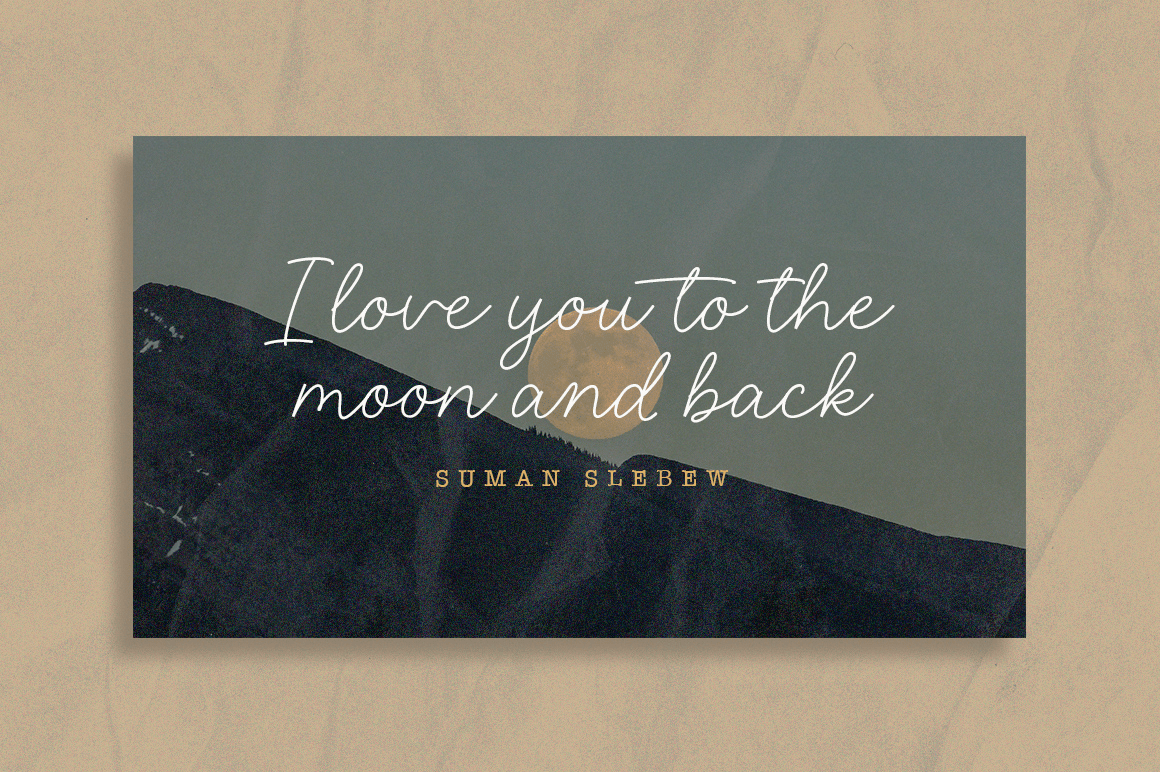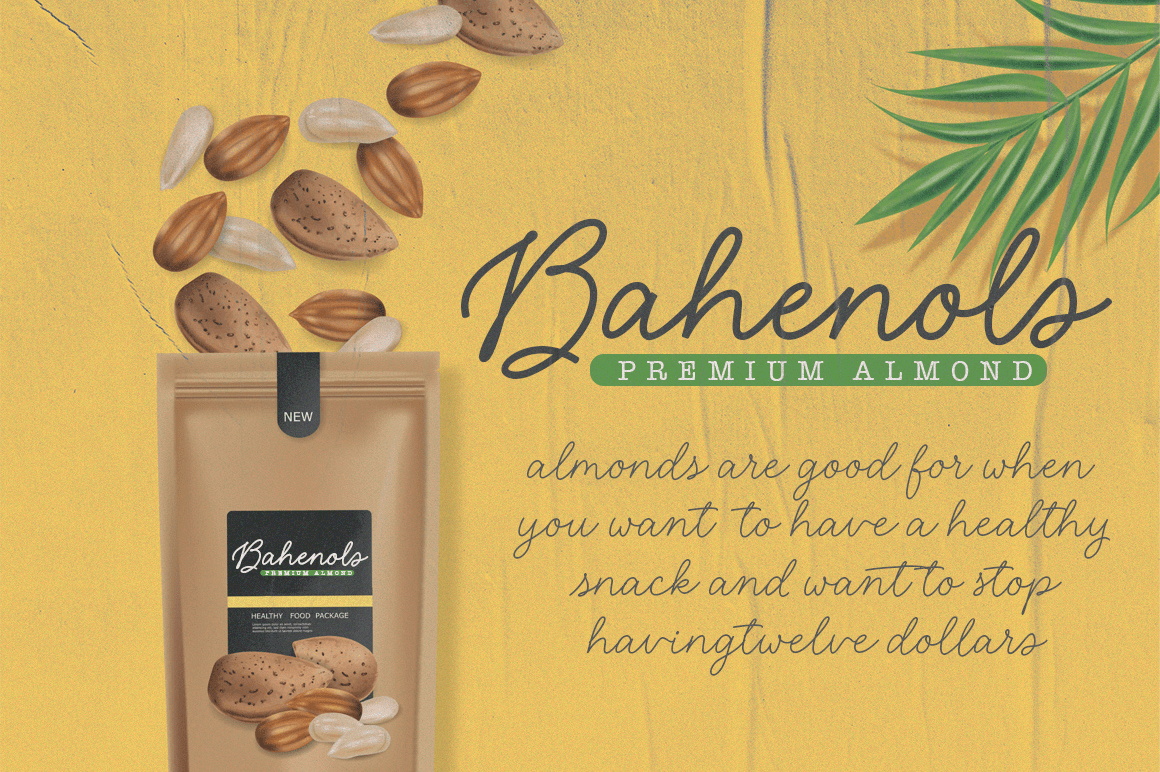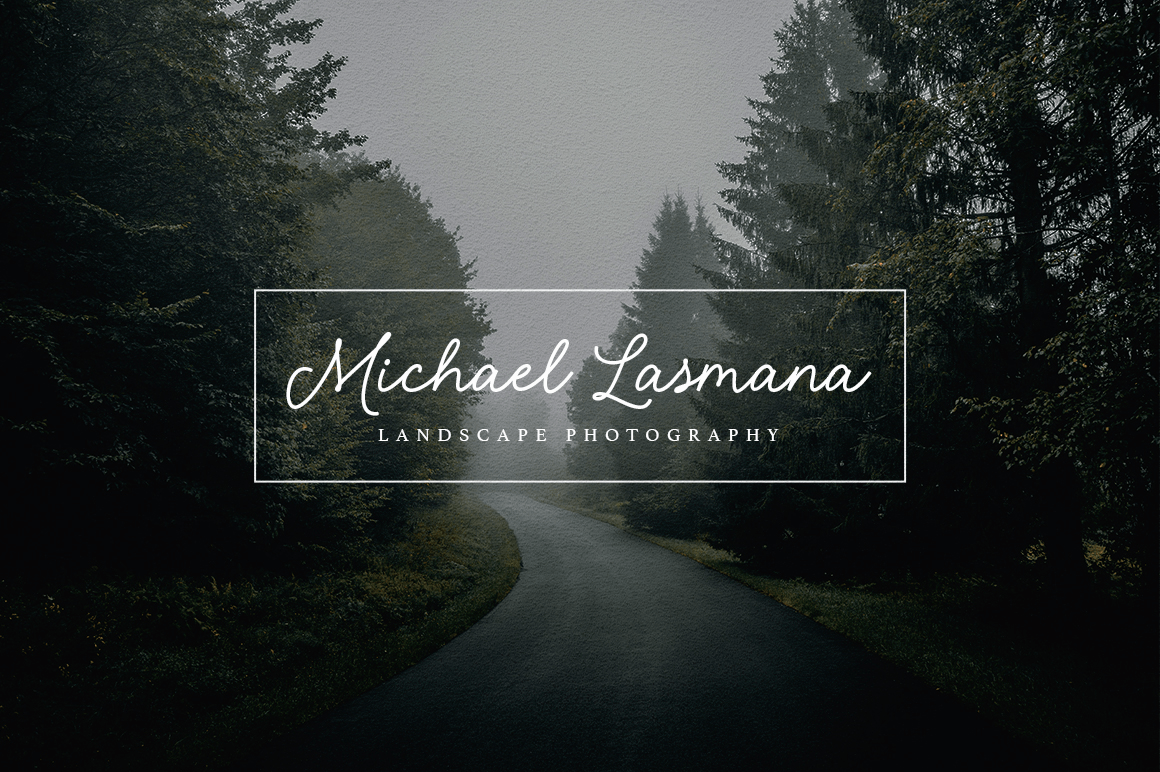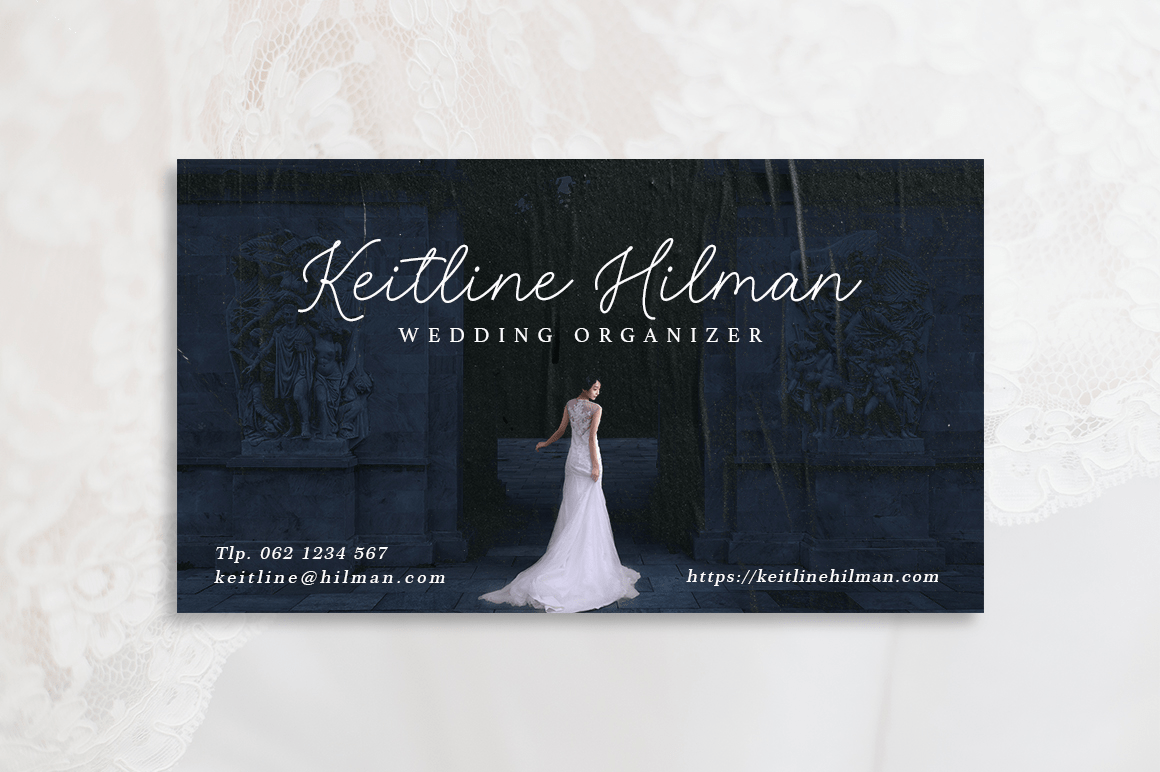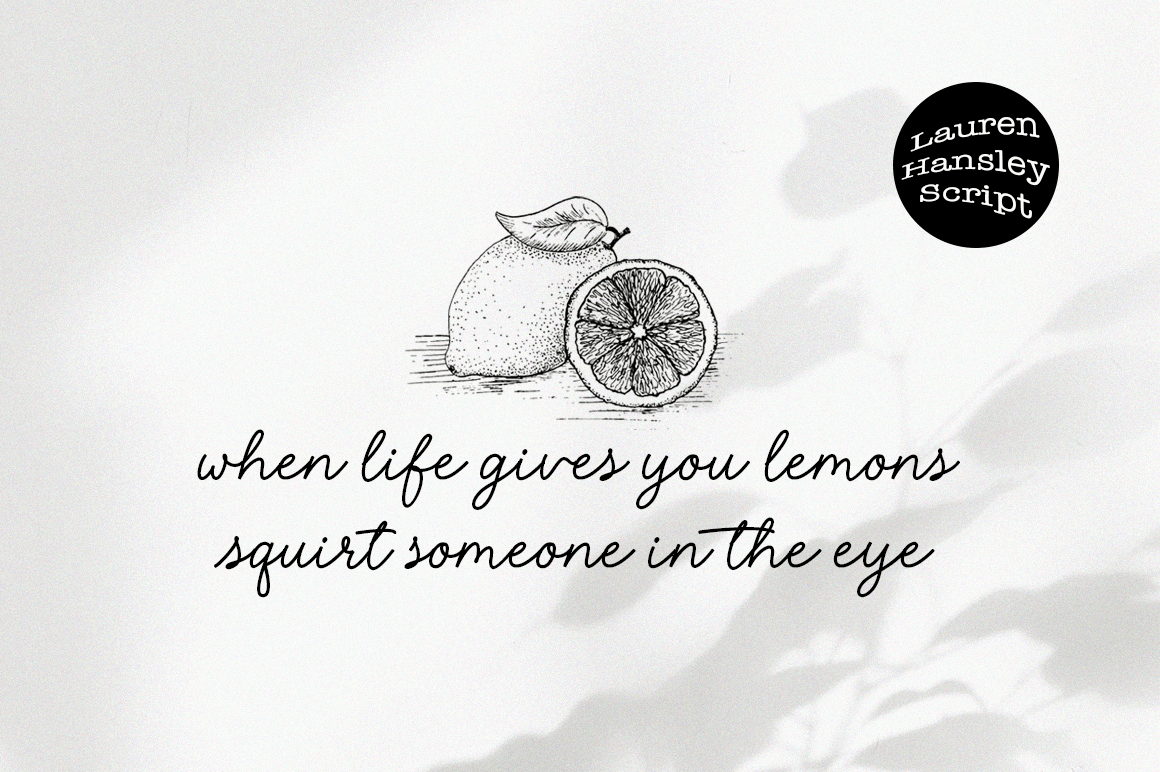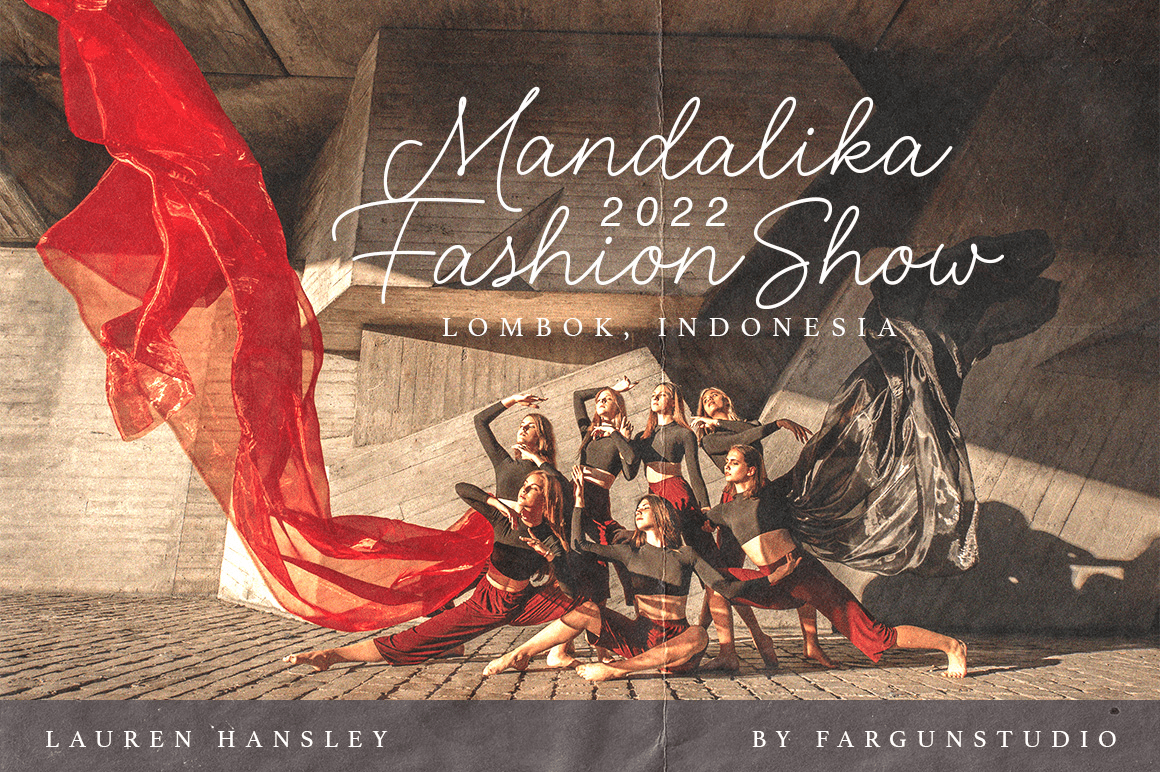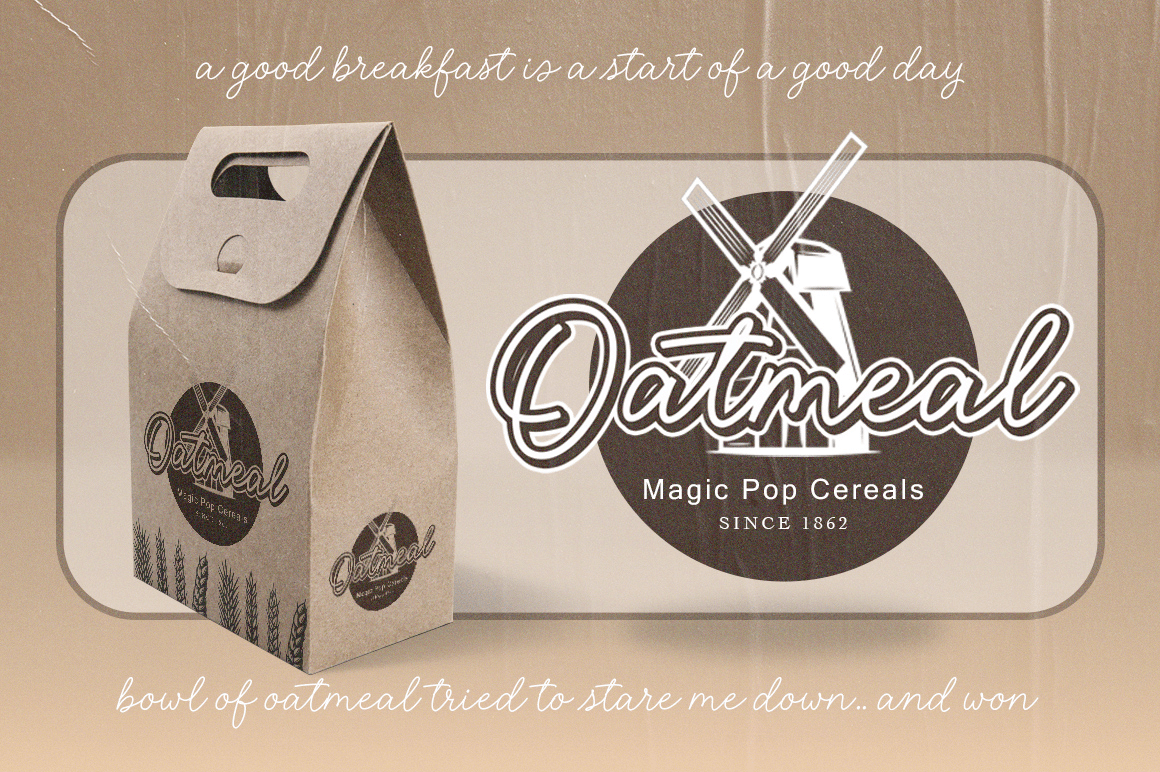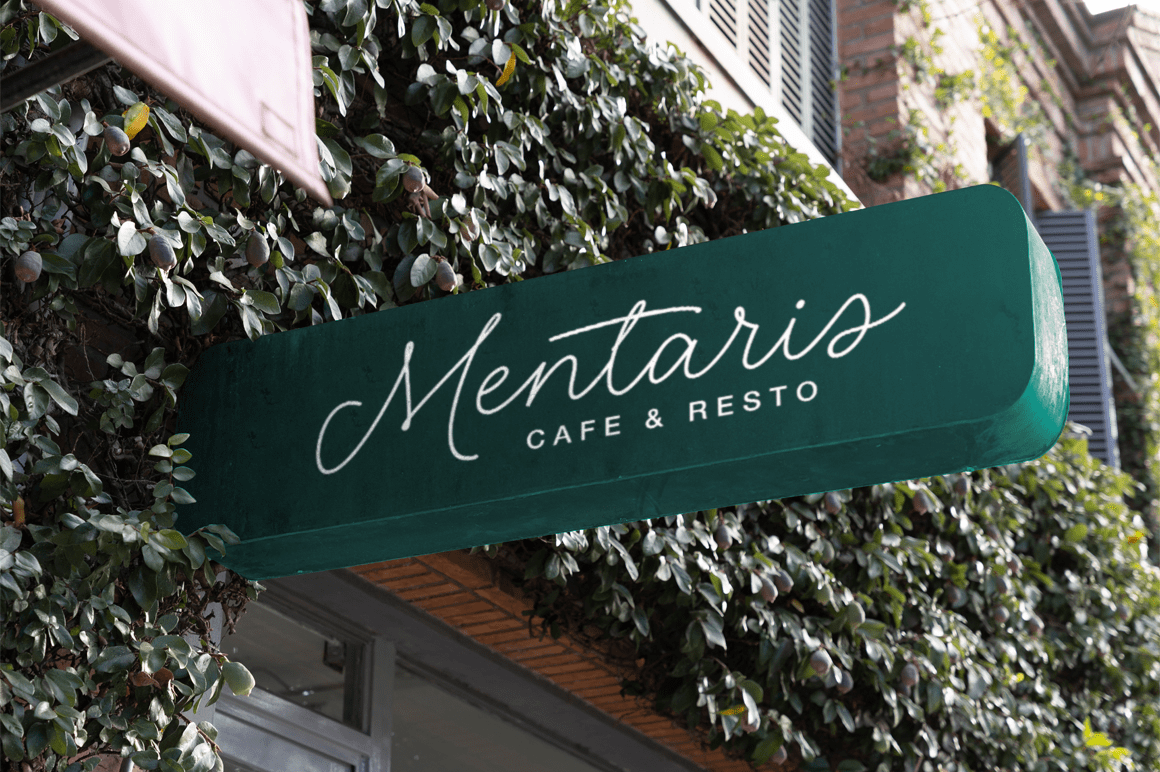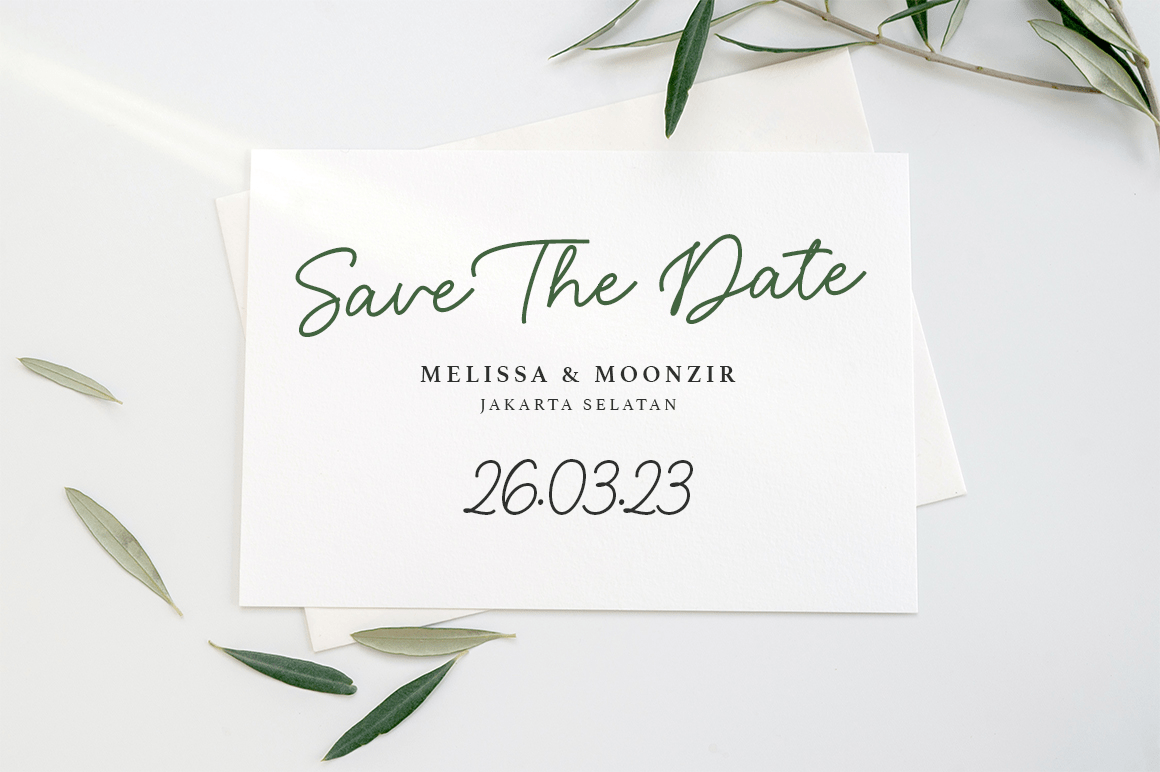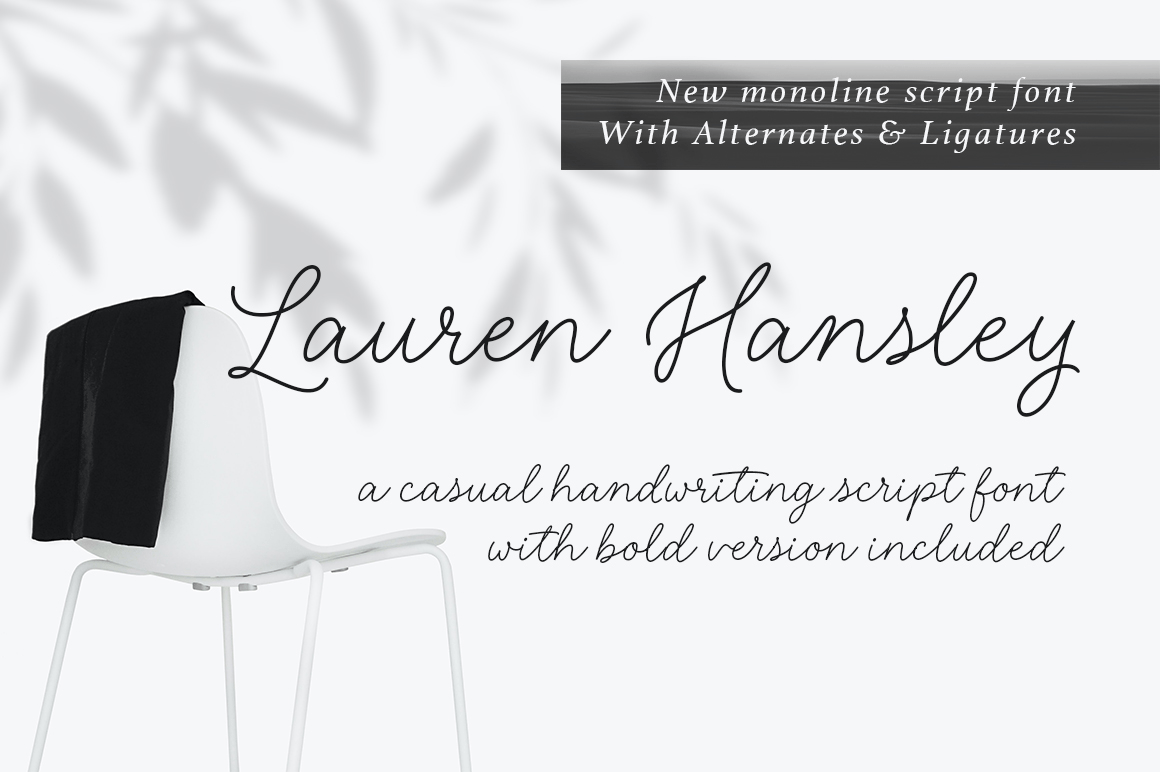
Introducing the new Lauren Hansley script font ? A beautiful and super-chilled new handwriting font script with some sexy stylish ligatures and alternates.